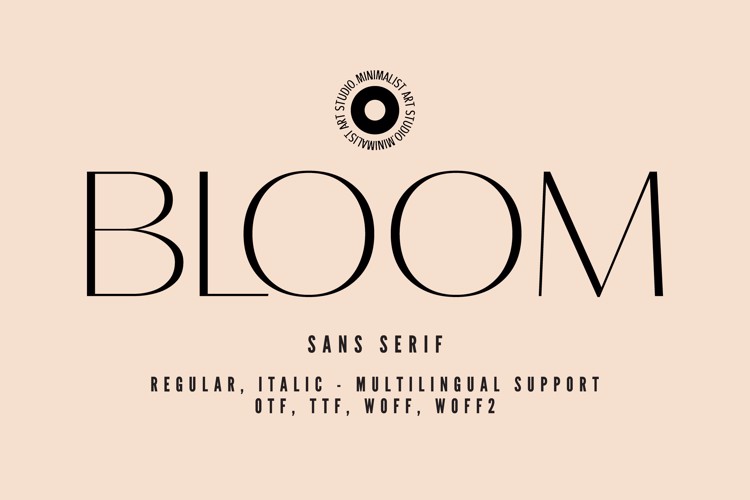
Bloom Font
π¨ Font Name: Bloom by Minimalist Art Studio
π¨ Font Description: Bloom is a minimalist sans serif with multilingual supportβperfect for clean branding, editorial elegance, and beauty packaging.